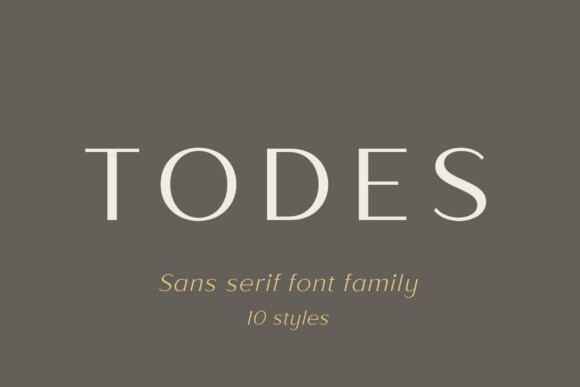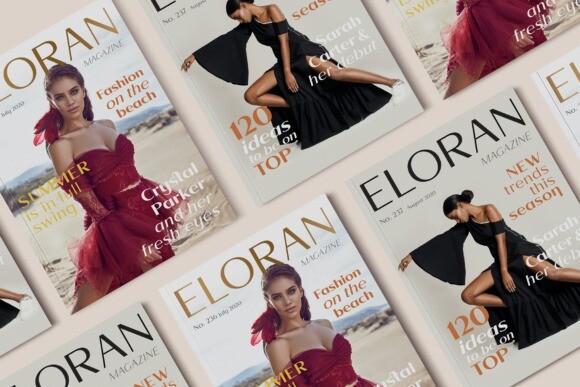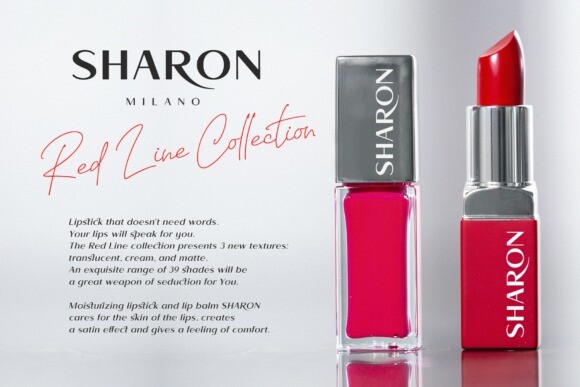
Todes Font
Todes is an elegant and modern font. It will look particularly adept when used in logos, branding, packaging design, and much more. This masterfully designed sans serif font is a true must-have.